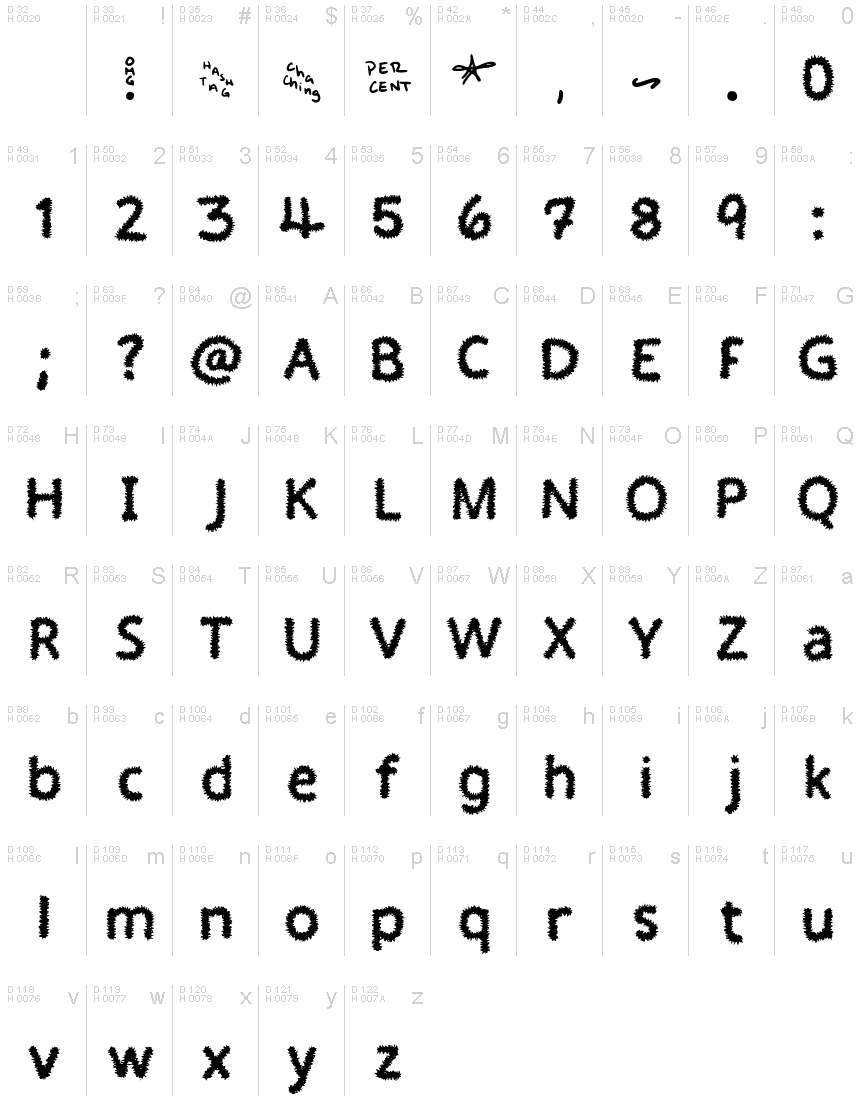
Fuzzywuzzywasafont Regular
Fuzzy wuzzy was a font is a distorted typeface designed by Nyte Skye.
Just my first test of making a font. Limited characters because #Broke and Calligraphr only lets you have 75 charas unless you pay. \_(ツ)_/